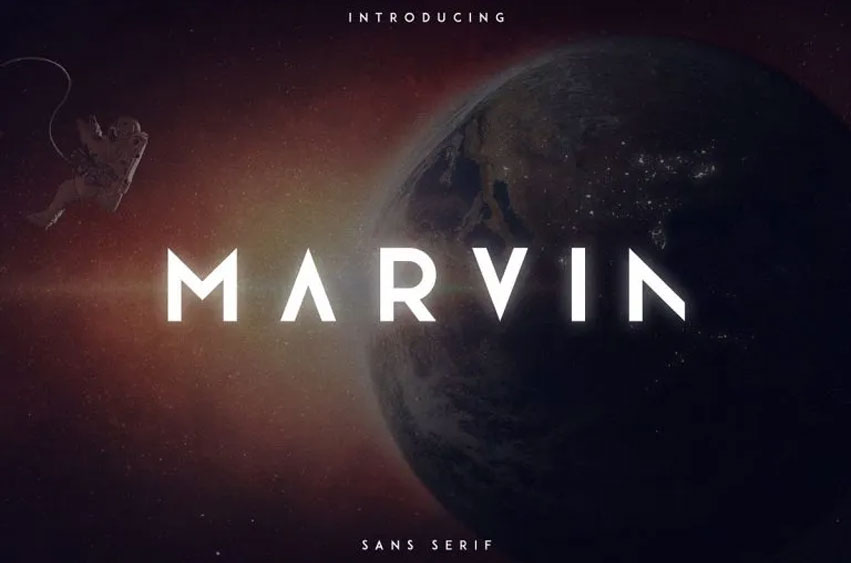
Marvin Sans Font was designed and shared by VPcreativeshop. Marvin Sans Serif Typeface is a typeface which is bold, clean sans serif with 3 fonts and multilingual support.
It is a very flexible font that looks just as good in big and small sizes. Marvin is the best for branding projects, home-ware designs, product packaging or to be used as a text overlay on any background image.